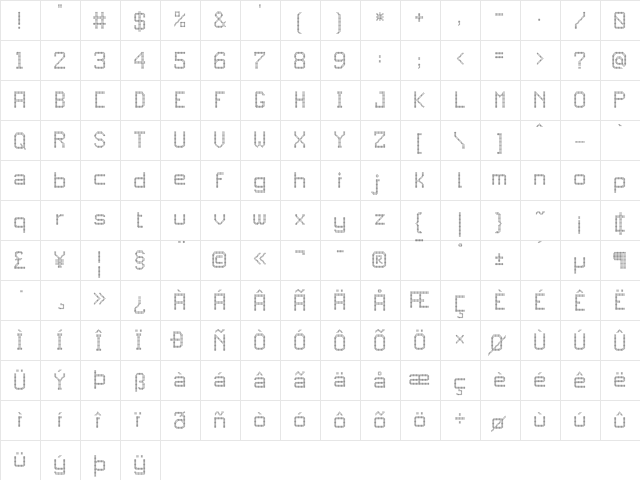
JD Gems Regular
| Designer | Jecko Development |
Design Context for JD Gems Typeface
JD Gems is a composed and adaptable typeface that performs quietly and consistently across a wide range of design contexts.